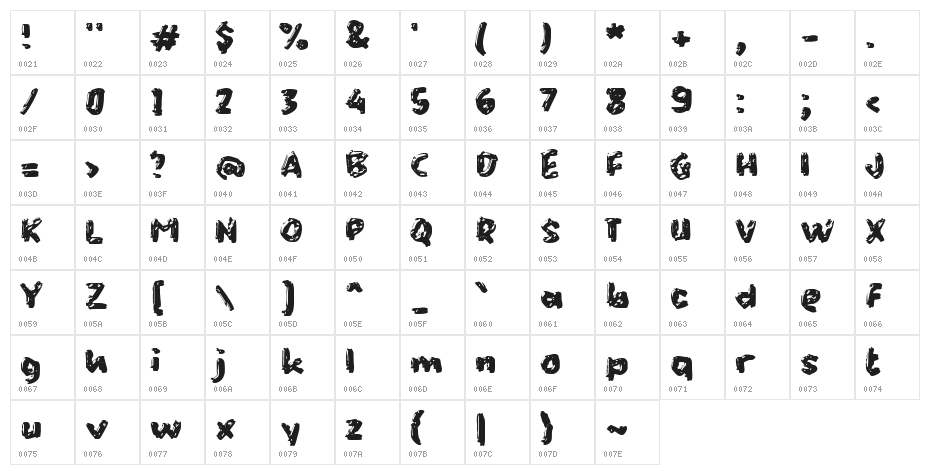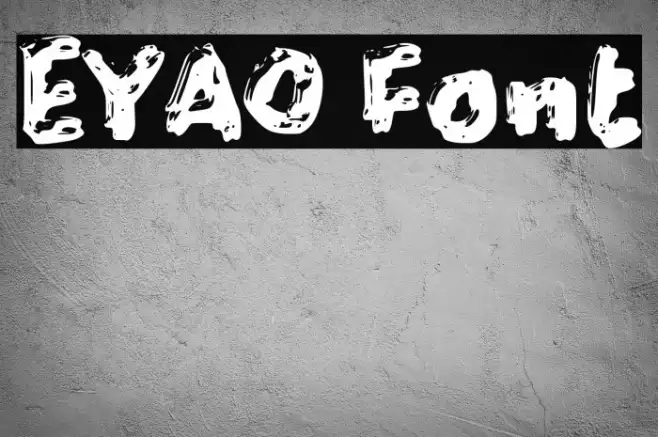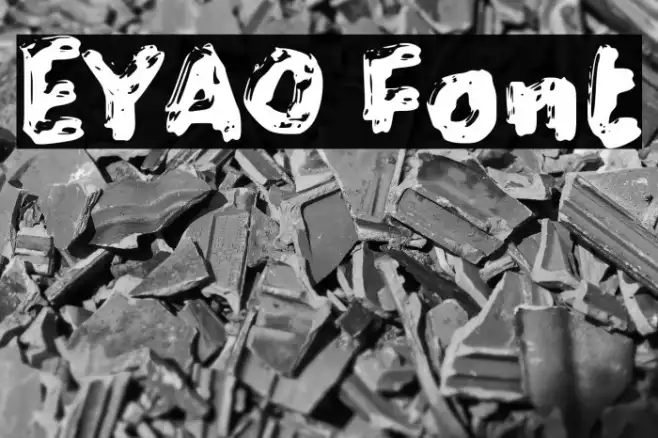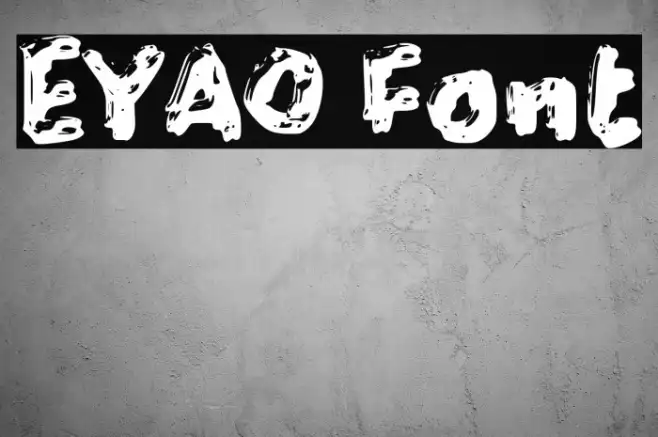
EYAO Font
EYAO Description
This font features a bold, expressive style with a hand-painted appearance. The characters are irregular and dynamic, with a rough texture that suggests brush strokes or splatters. The uppercase and lowercase letters maintain a consistent visual weight, creating a cohesive look. The numbers and special characters follow the same artistic style, adding to the font's unique personality. This font is ideal for projects that require a bold and artistic touch, such as posters, album covers, or creative branding.
EYAO UPPERCASE
EYAO LOWERCASE
EYAO OTHER CHARS